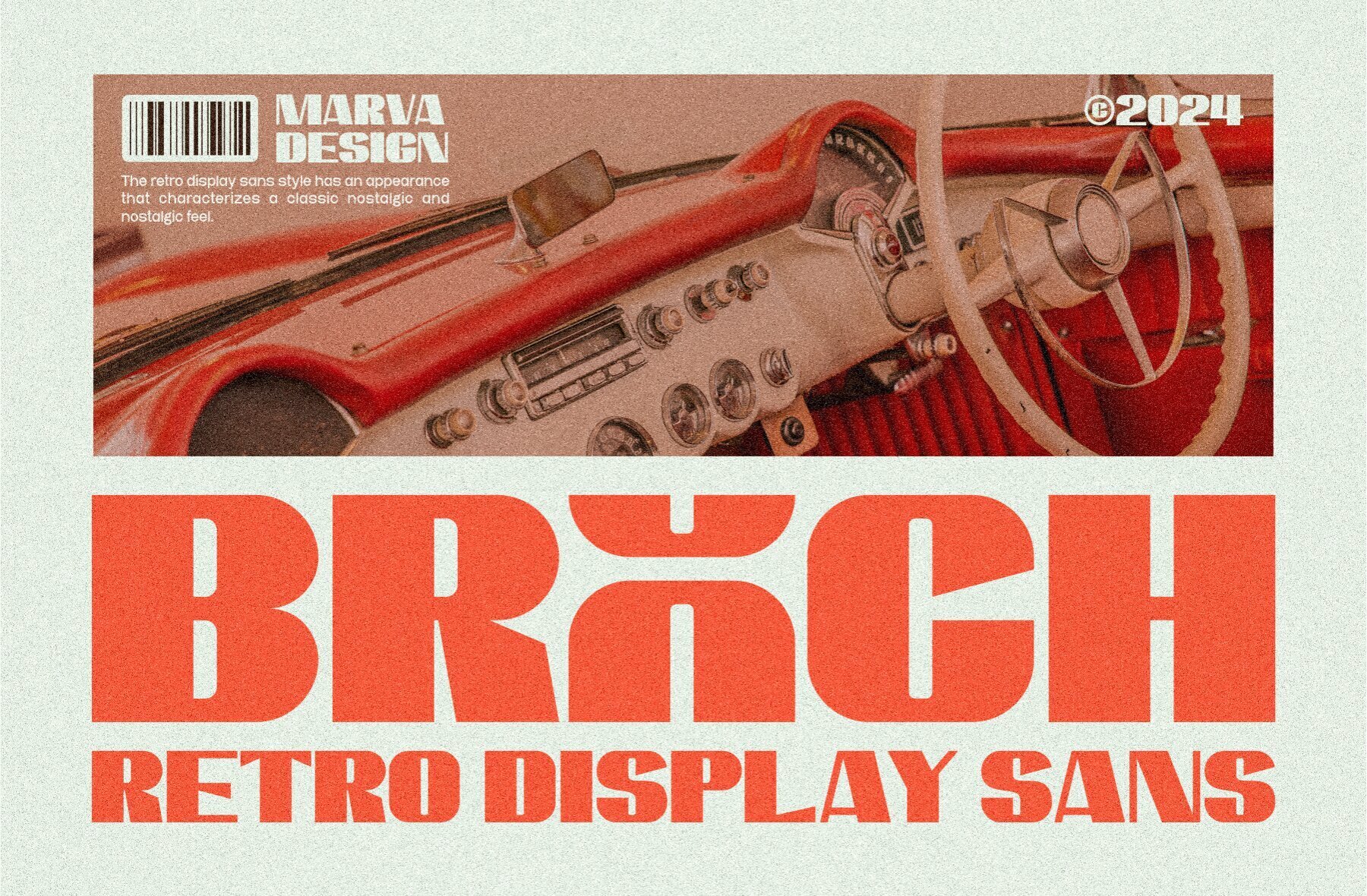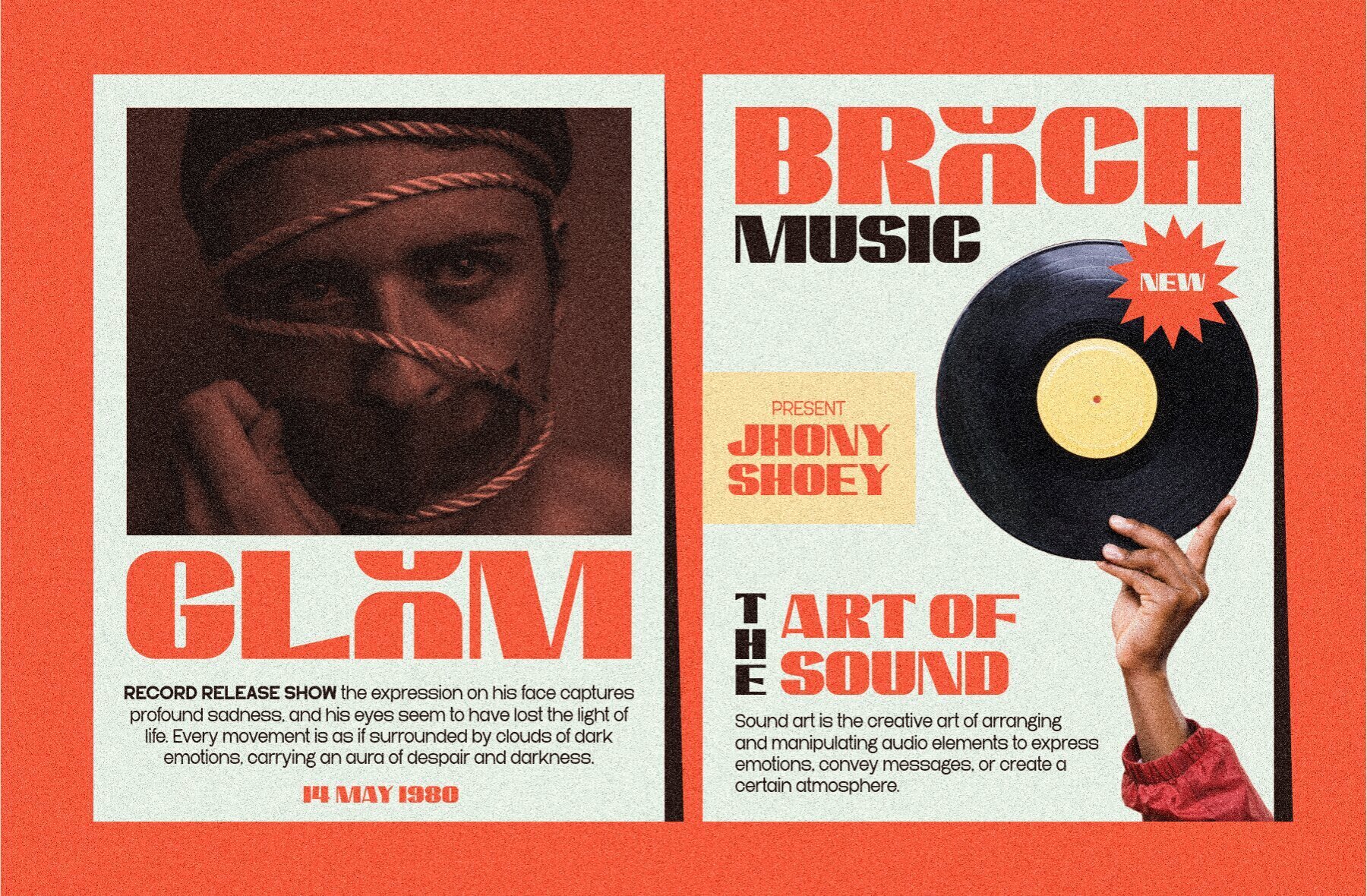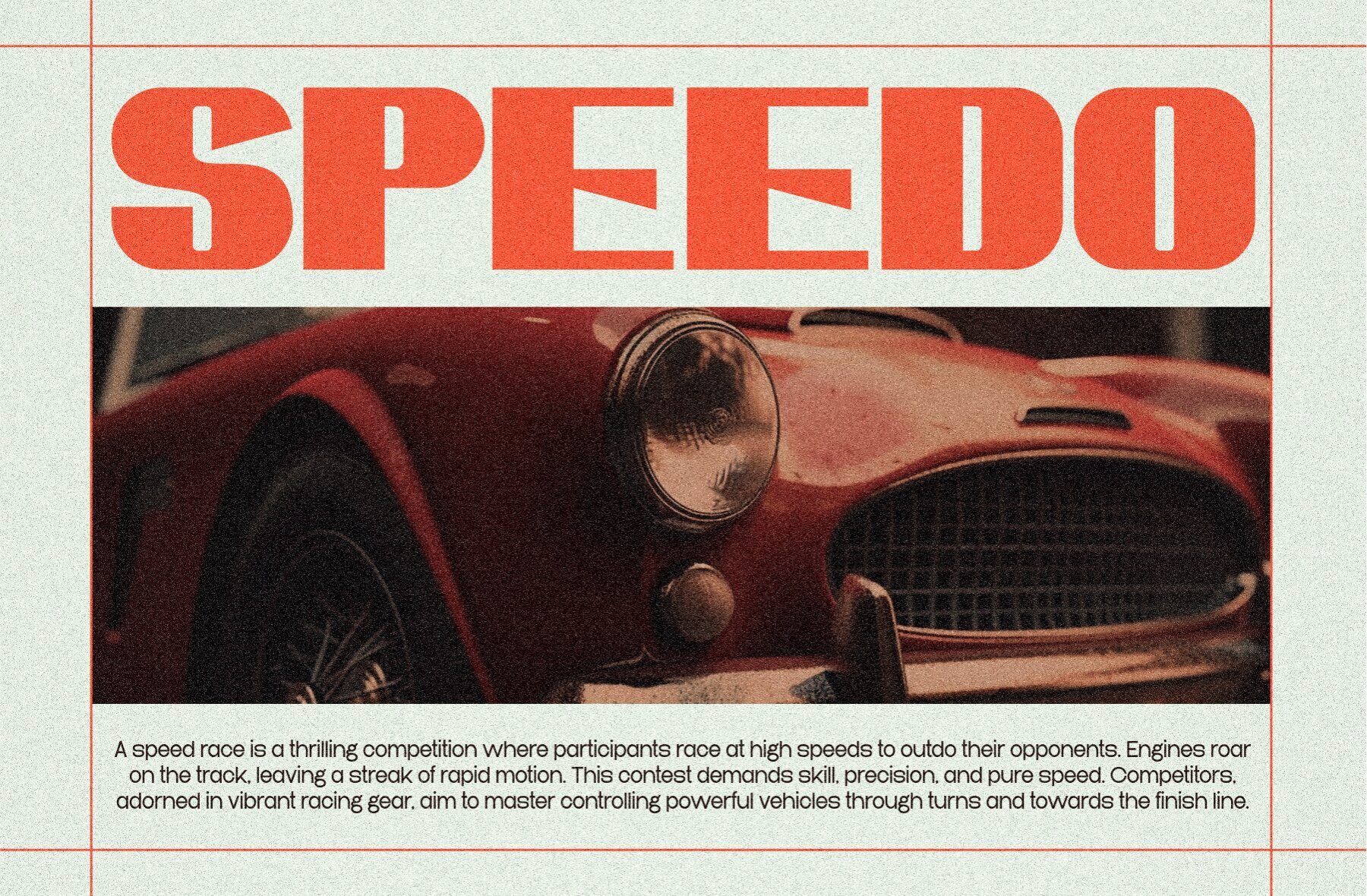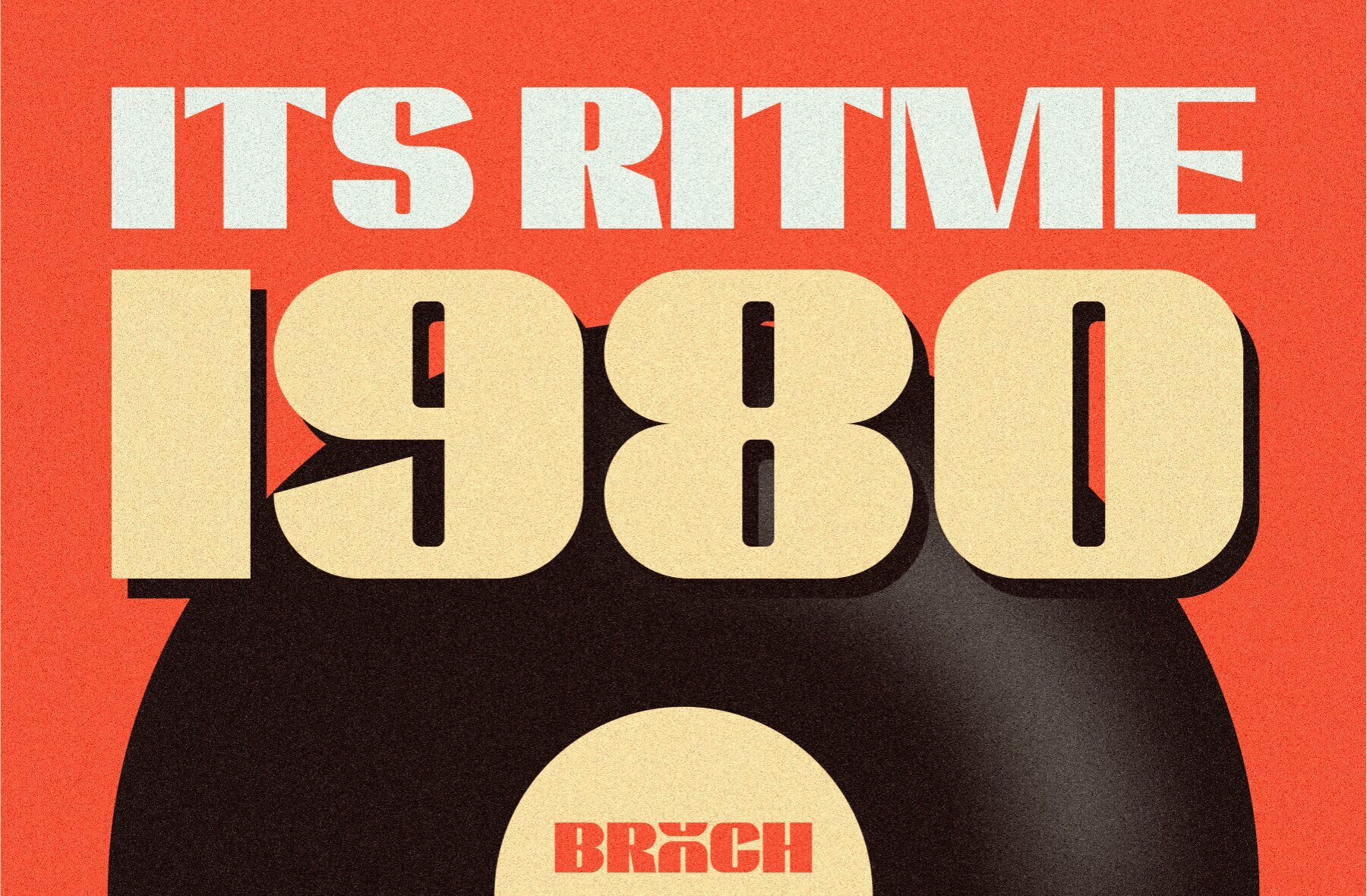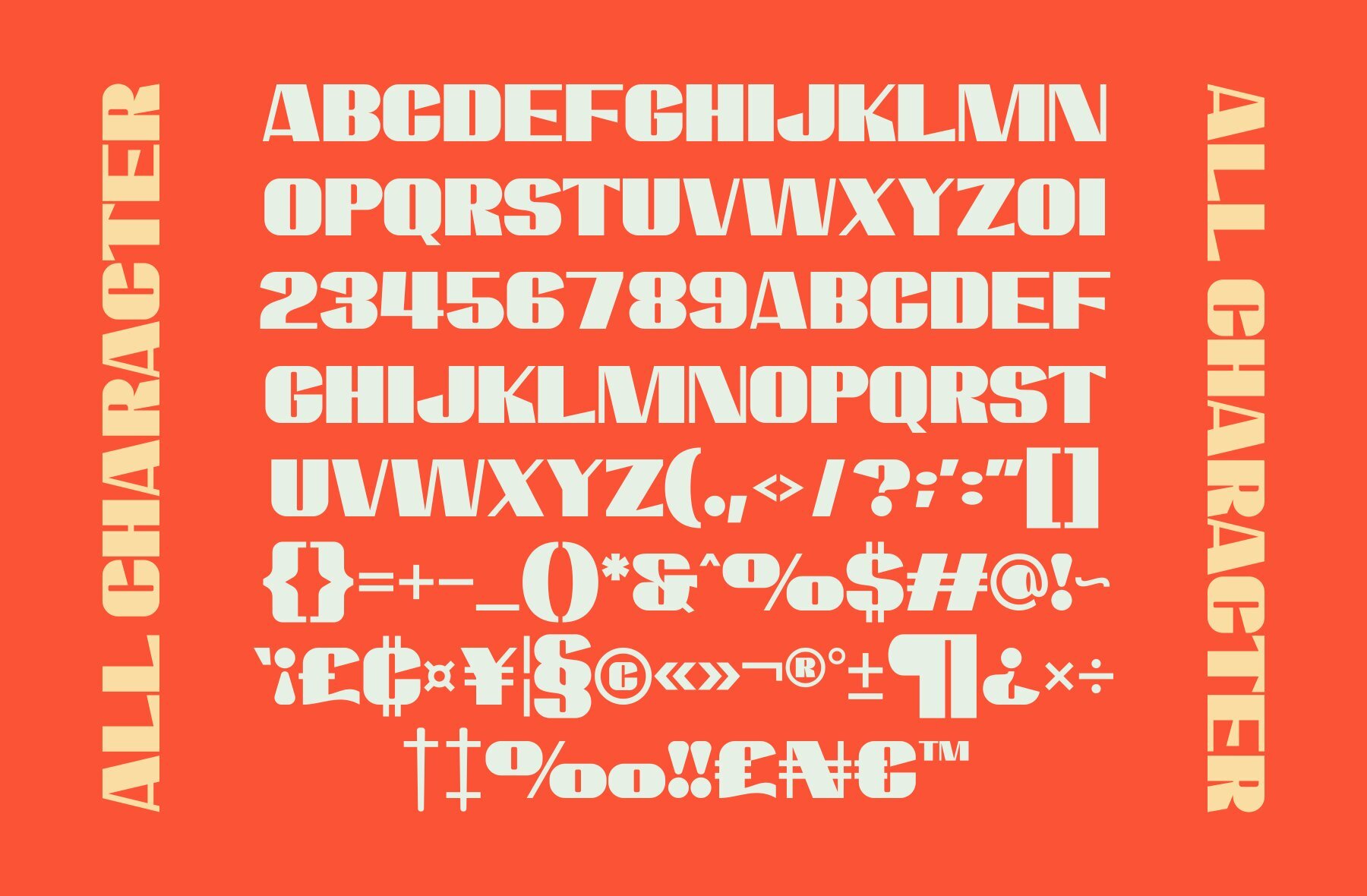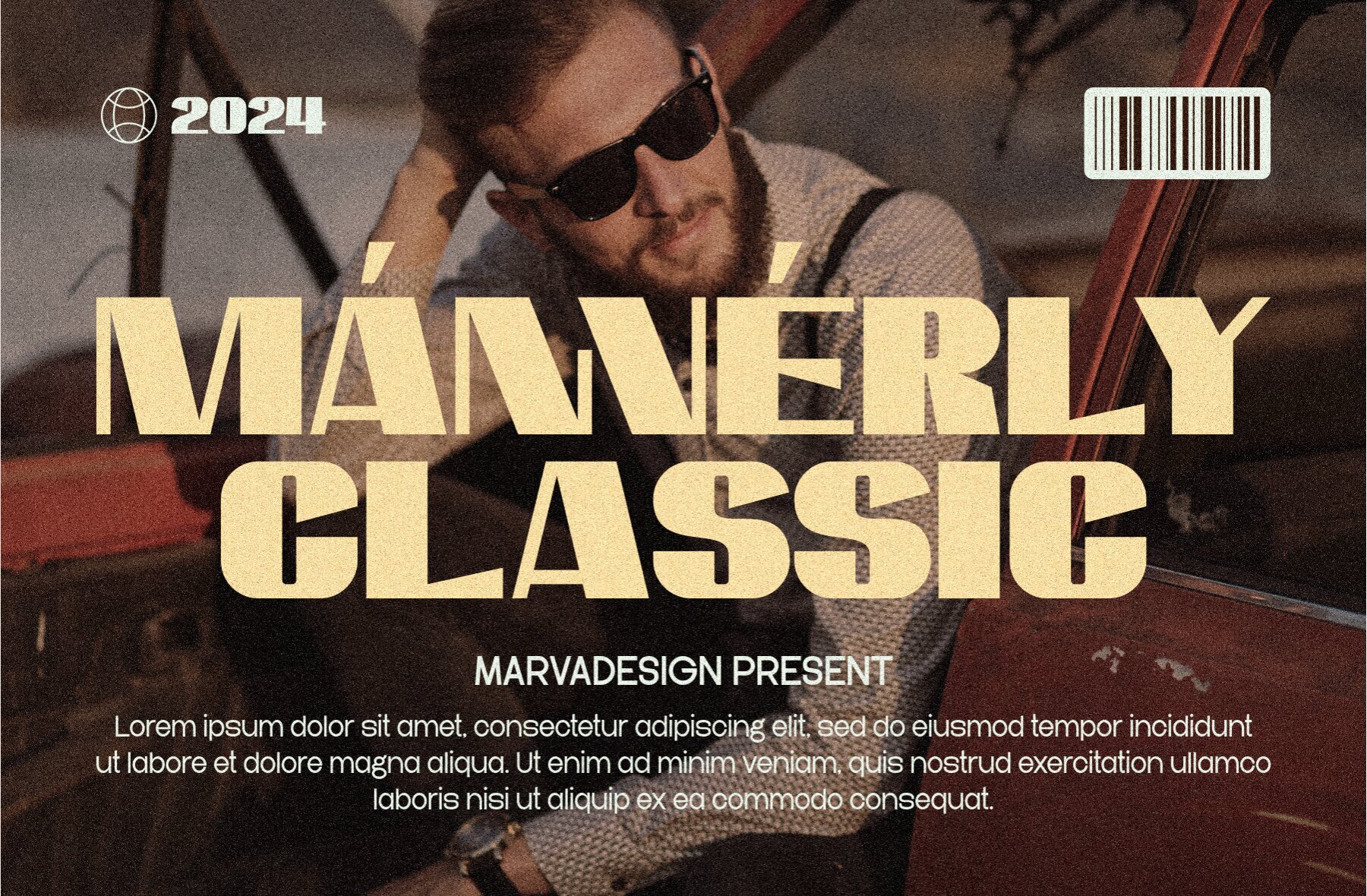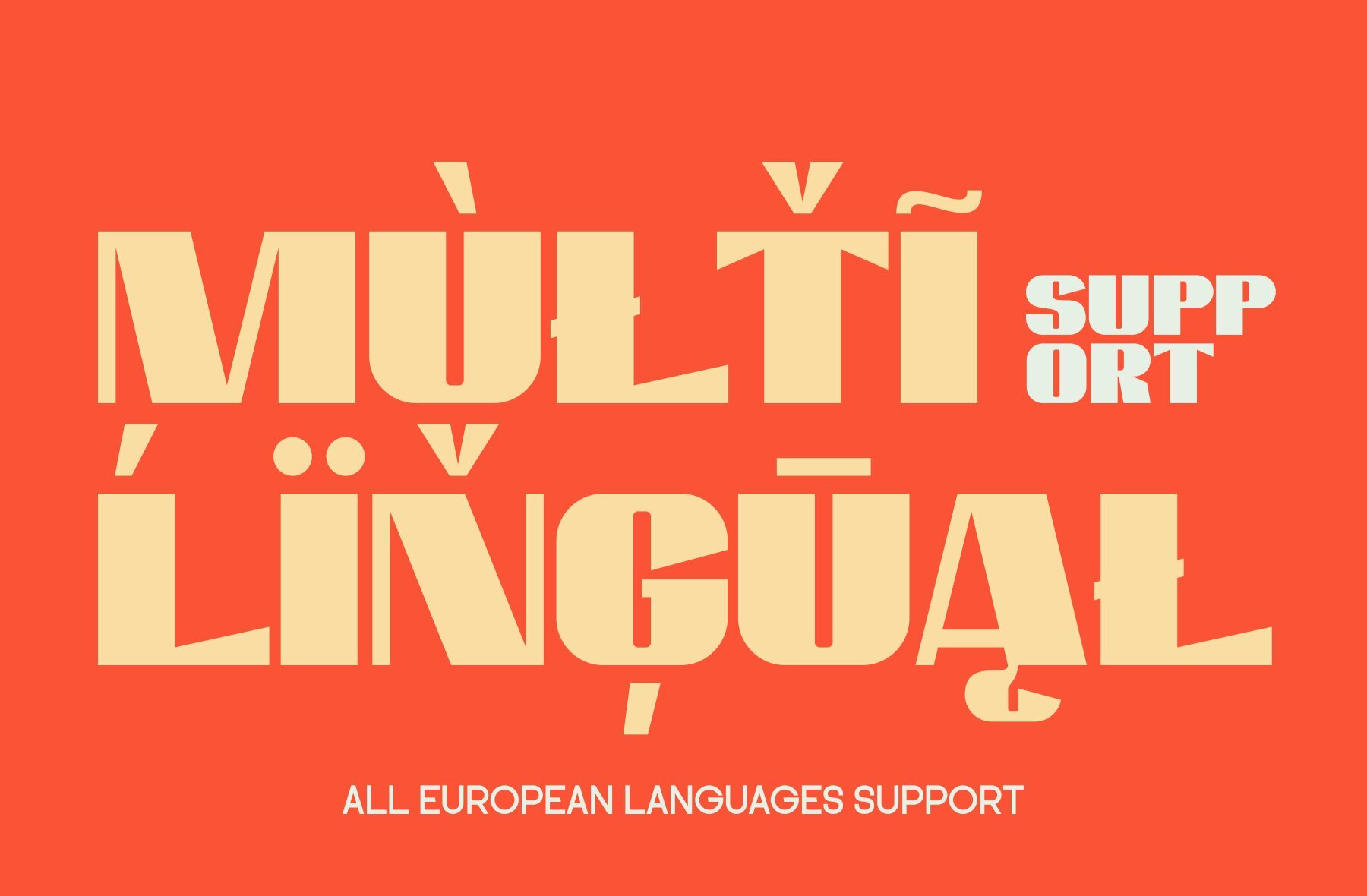
Brooch Font
Brooch Regular
The Brooch font is a retro display sans serif, crafted for an authentic look. It is versatile and well-suited for various branding projects, including logos, templates, and product designs, standing out in a wide range of contexts.Brooch: Retro Display Sans Serif